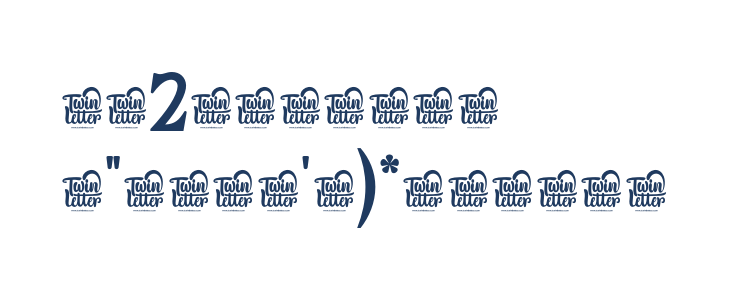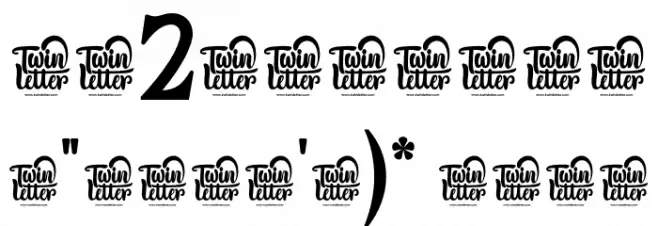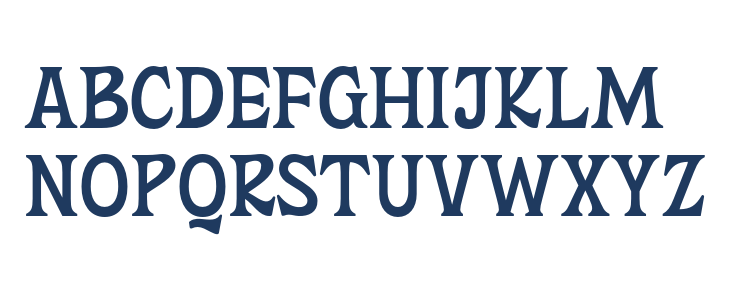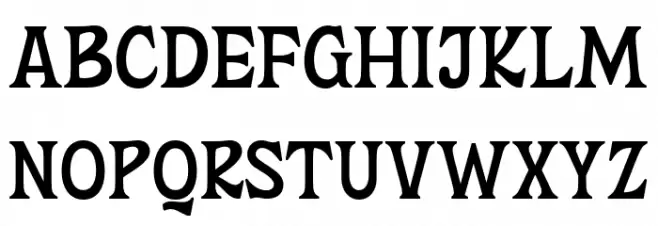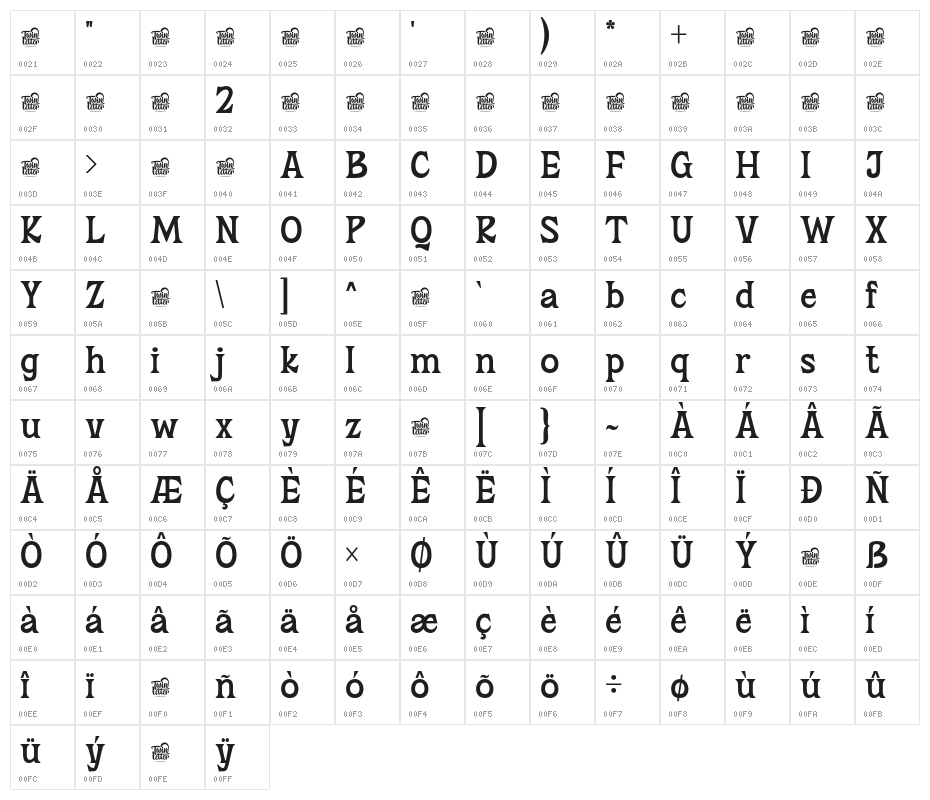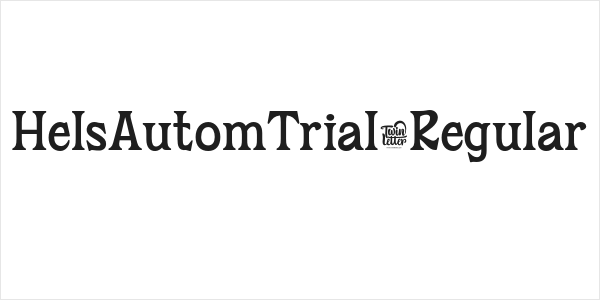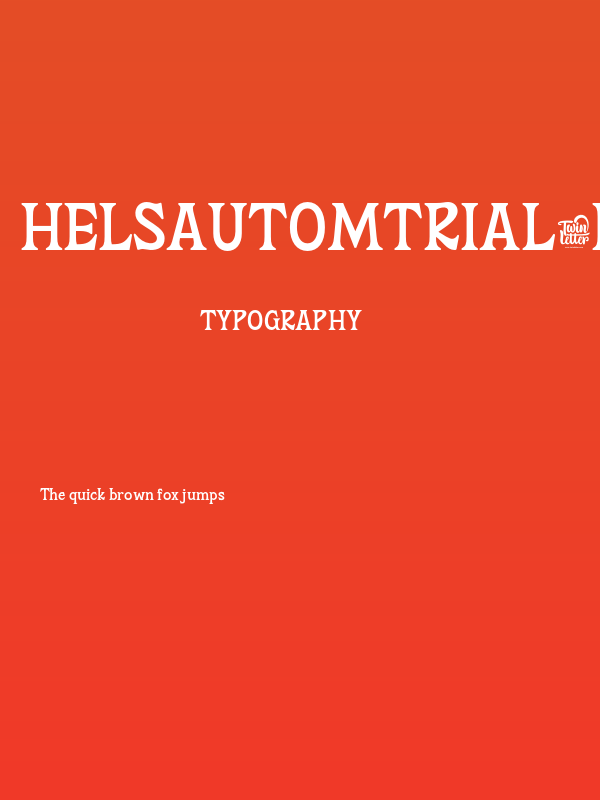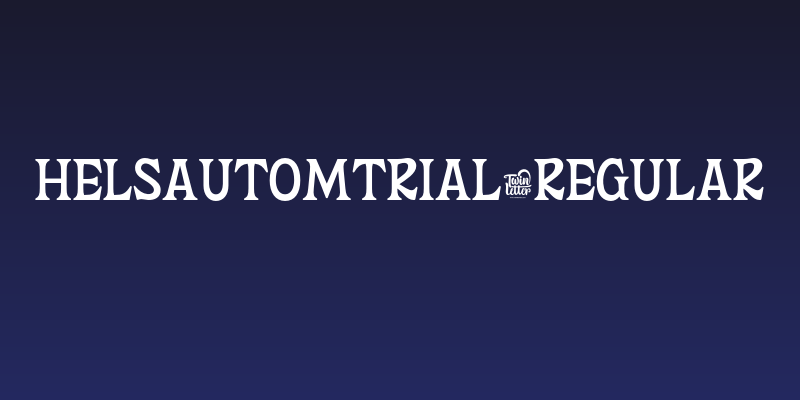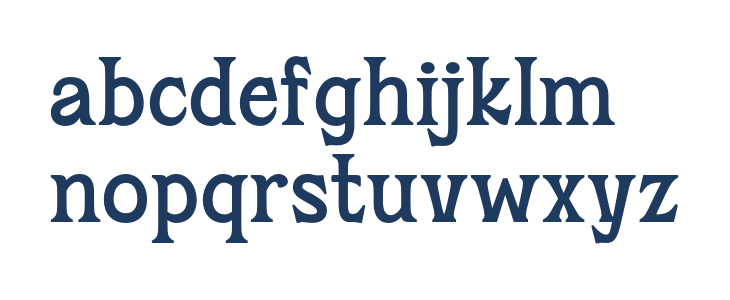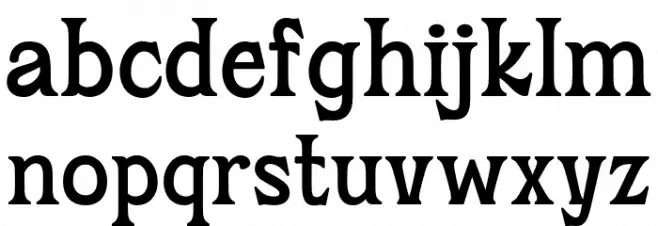
HelsAutomTrial-Regular Font
HelsAutomTrial-Regular Description
A serif typeface with slightly flared strokes and a hand-crafted, organic feel. The letterforms are traditional but feature subtle irregularities, giving a lively and somewhat whimsical appearance. The numerals and punctuation are consistent with the overall style.
| Overall Style | Classic, Decorative |
| Use Case | Headlines, Display text, Logos |
| Proposed Projects | Book covers, editorial titles, branding, posters, invitations. |